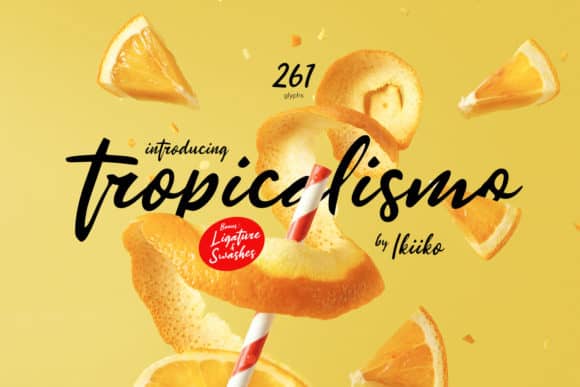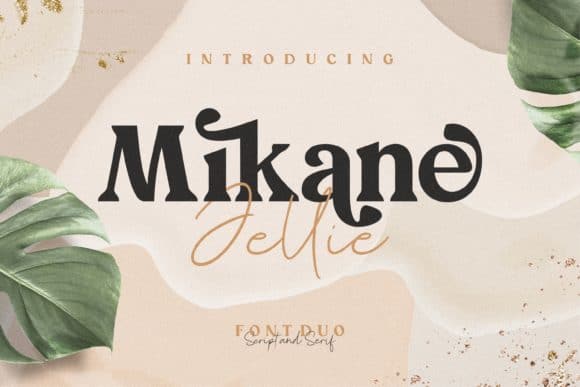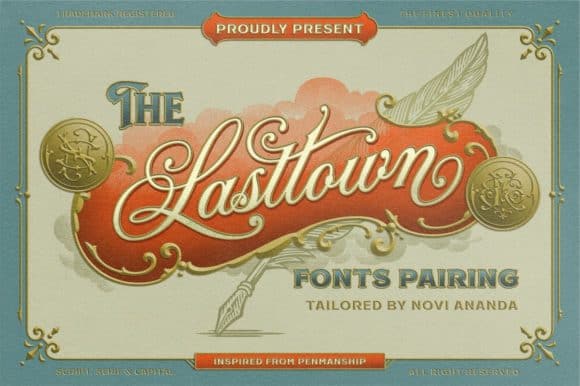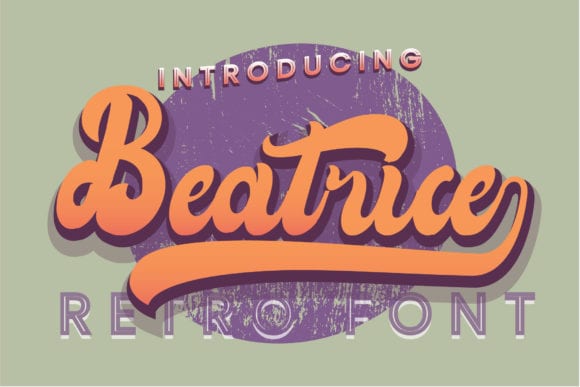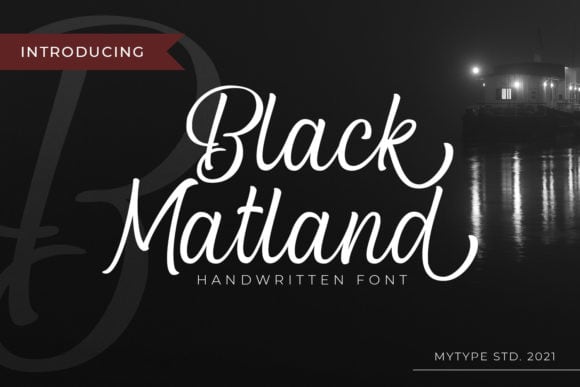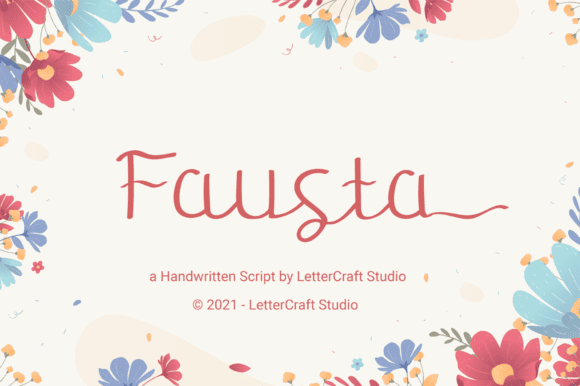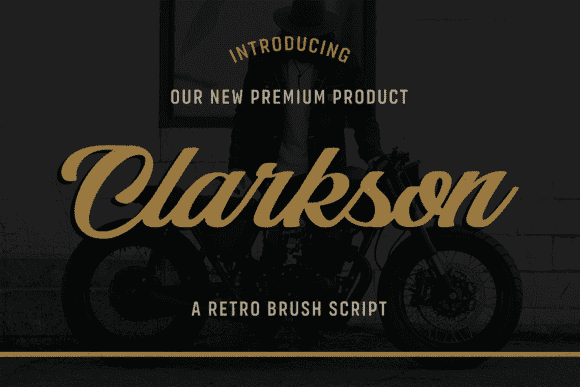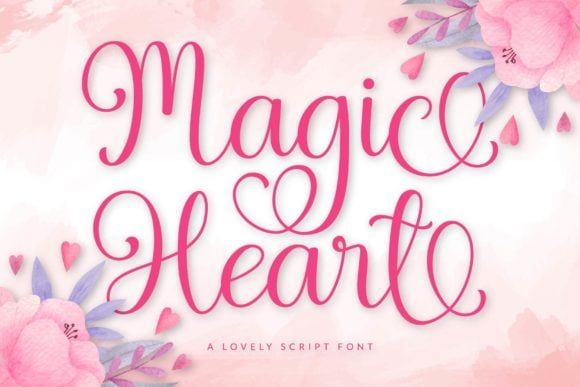
1. Tropicalismo Font
Tropicalismo is an exquisite handwritten font, masterfully designed to become a true favorite. It maintains its classy calligraphic influences while feeling contemporary and fresh. Fall in love with it and bring your projects to the highest levels!
Author : ikiiko
2. Vampire Font
Vampire is a relaxed and stylish script font that exudes distinctiveness and class. This font was particularly crafted for those who need a beautiful and refreshing look to their designs.
Author : rezh.production
3. Mikane Jellie Font
Mikane Jellie is the perfect combination of elegant and trendy. This duo font (script and serif) will turn your creations into real works of art. Mikane Jellie is PUA encoded which means you can access all of the glyphs and swashes with ease!
Author : pailystudio
4. Simfony Font
Simfony is a lovely paint brushed script font, featuring a unique flow. It has a classy, elegant and modern look that can be used for logos, branding, invitations, stationery, wedding designs, social media posts, and much more!
Author : Vunira
5. Lasttown Font
Lasttown is an exquisite trio font (two styles of serif and handwritten). This font is PUA encoded which means you can access all of the glyphs and swashes with ease! This font reads as strong, confident, and dynamic and can add tons of nostalgic character to your designs.
Author : NoviSouldado
6. Beatrice Font
Beatrice is a standout bold handwritten font with a touch of vintage, retro influences. This typeface is a perfect match for logos, headlines, magazines, books, greeting cards, makeup products, and more!
Author : Nerdstudio
7. Black Matland Font
Black Matland is a stylish handwritten font. With natural and classy letters, this font is perfect for any of your lovely projects that need an original and elegant style!
Author : Mytype Studio
8. Fausta Font
Fausta is a lovely and timeless handwritten font. It is the best choice for creating eye catching logos, branding and quotes. Every letter has a unique and beautiful touch, which will make your design come alive! This font is PUA encoded which means you can access all of the glyphs and swashes with ease!
Author : LetterCraft Studio
9. Clarkson Font
Clarkson is a modern handwritten font that is cursive, bold and stylish. It is defined by smooth curves and is perfect for fashion branding or editorial designs. Add it confidently to your projects, and you will love the results. This font is PUA encoded which means you can access all of the glyphs and swashes with ease!
Author : Graphue
10. Magic Heart Font
Magic Heart is a romantic and sweet calligraphy typeface with characters that dance along the baseline. It will add a luxury spark to any design project that you wish to create! This font is PUA encoded which means you can access all of the amazing glyphs and ligatures with ease!
Author : ToniStudio